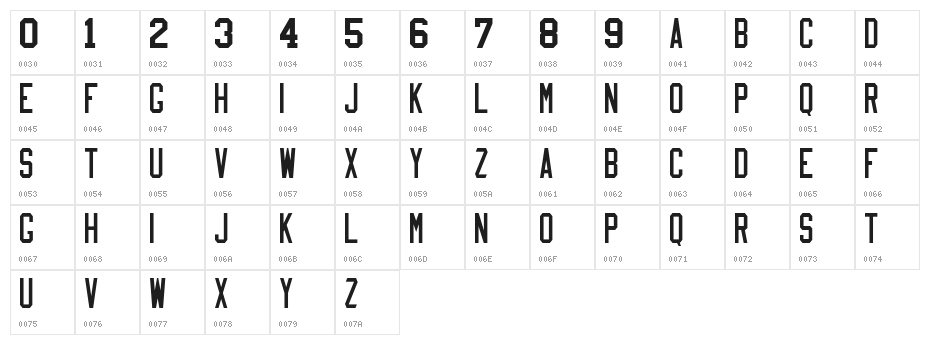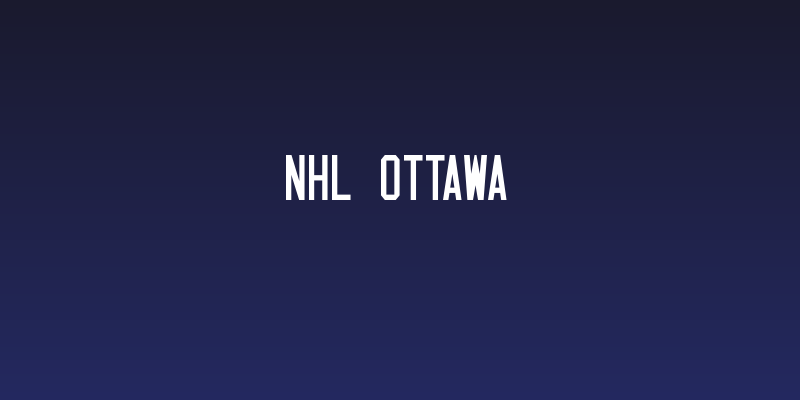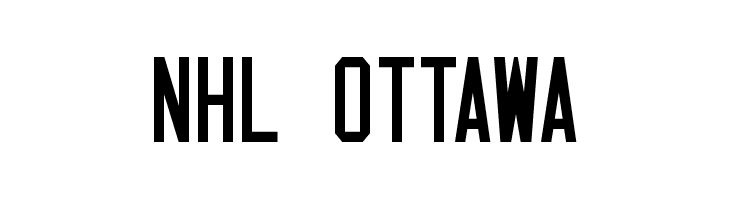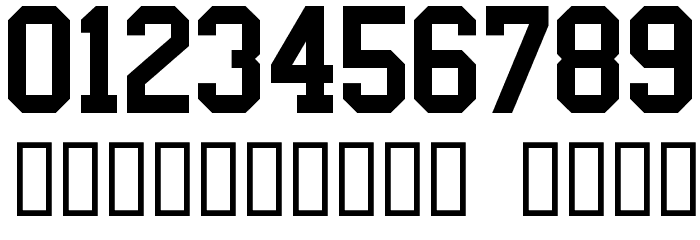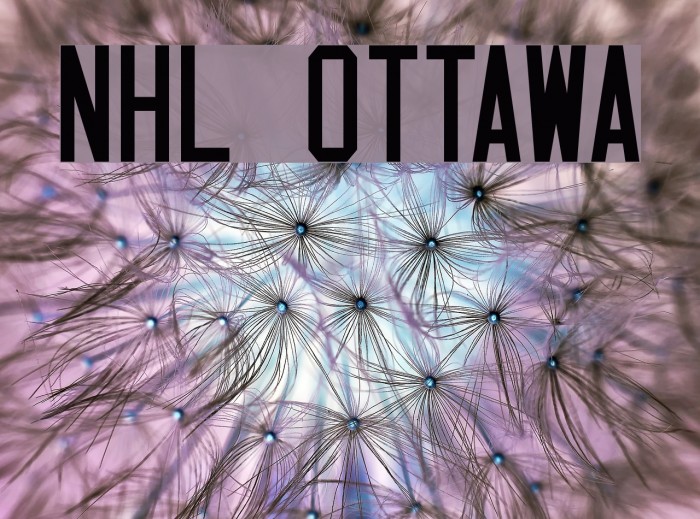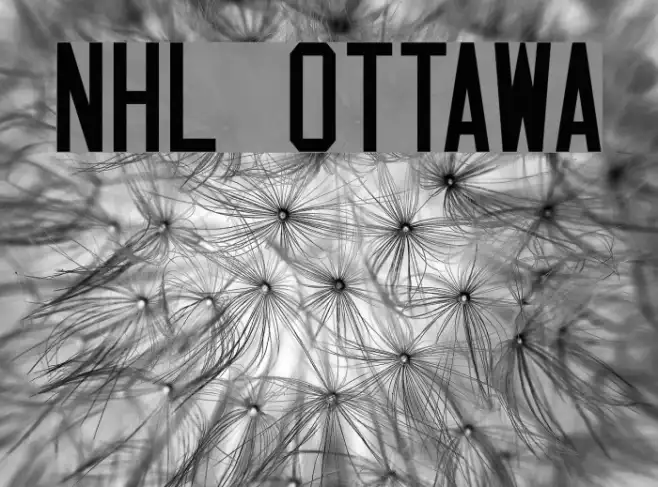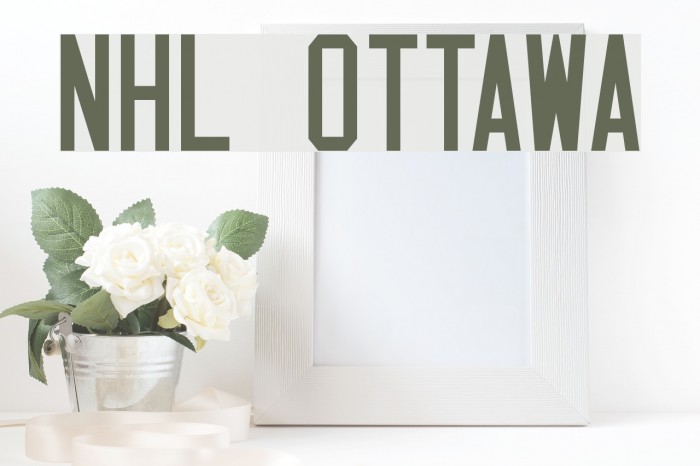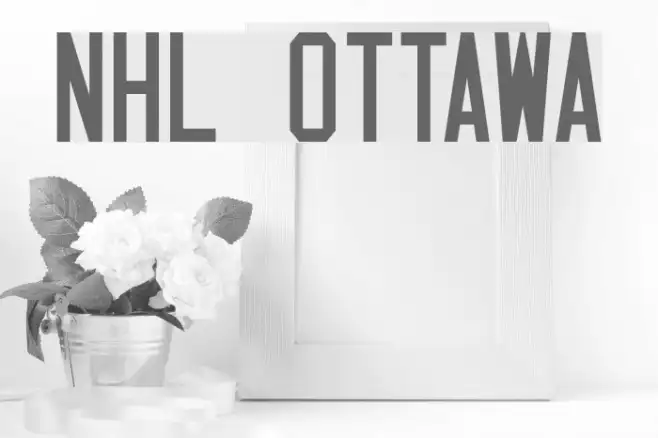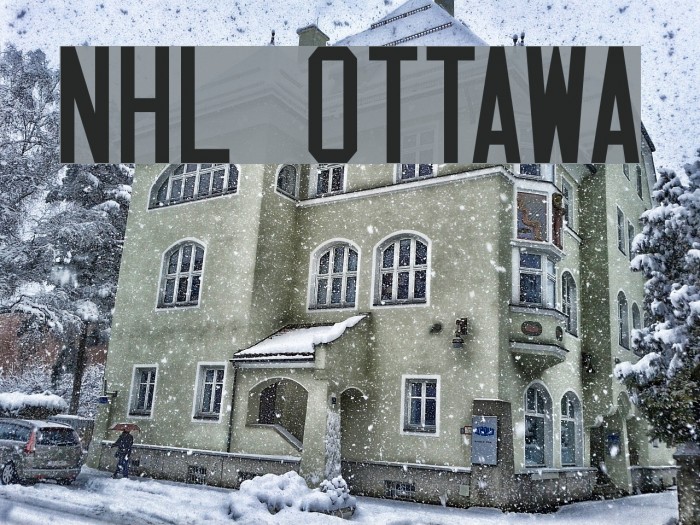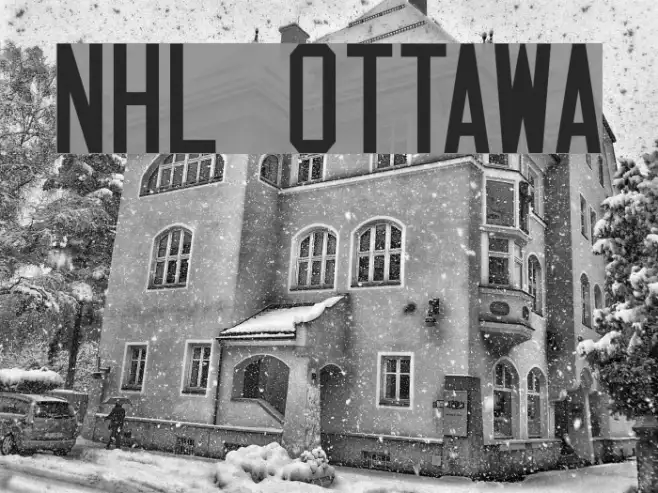
NHL Ottawa Font
This font features a bold and impactful design with strong geometric shapes and sharp angles. The uppercase letters are uniform in height, creating a cohesive and structured appearance. The numerals follow the same bold style, ensuring consistency across all characters. The font's design is reminiscent of sports team branding, with a focus on clarity and visibility. The absence of lowercase letters emphasizes its use for headlines or titles where prominence is key. The overall style is modern and assertive, making it suitable for projects that require a strong visual presence.
| Proposed Projects | Sports team logos, event posters, merchandise branding, and any project requiring a bold statement. |